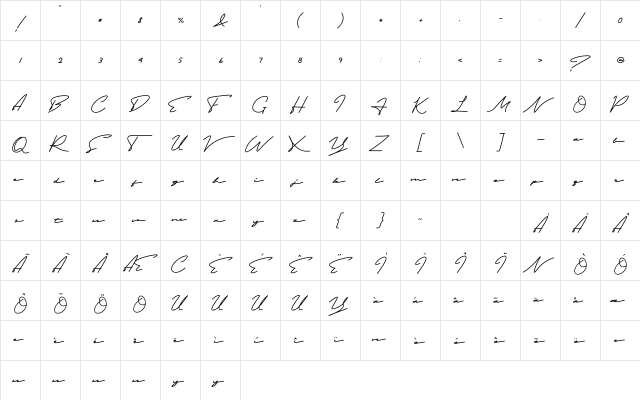
Limbathude Script Regular
| Foundry | Namara Creative Studio |
| Designer | Eep Apringga | Namara Creative Studio |
Design Context for Limbathude Script Typeface
Limbathude Script flows with the natural rhythm of handwritten lettering, making it ideal for designs that call for warmth and personal expression.